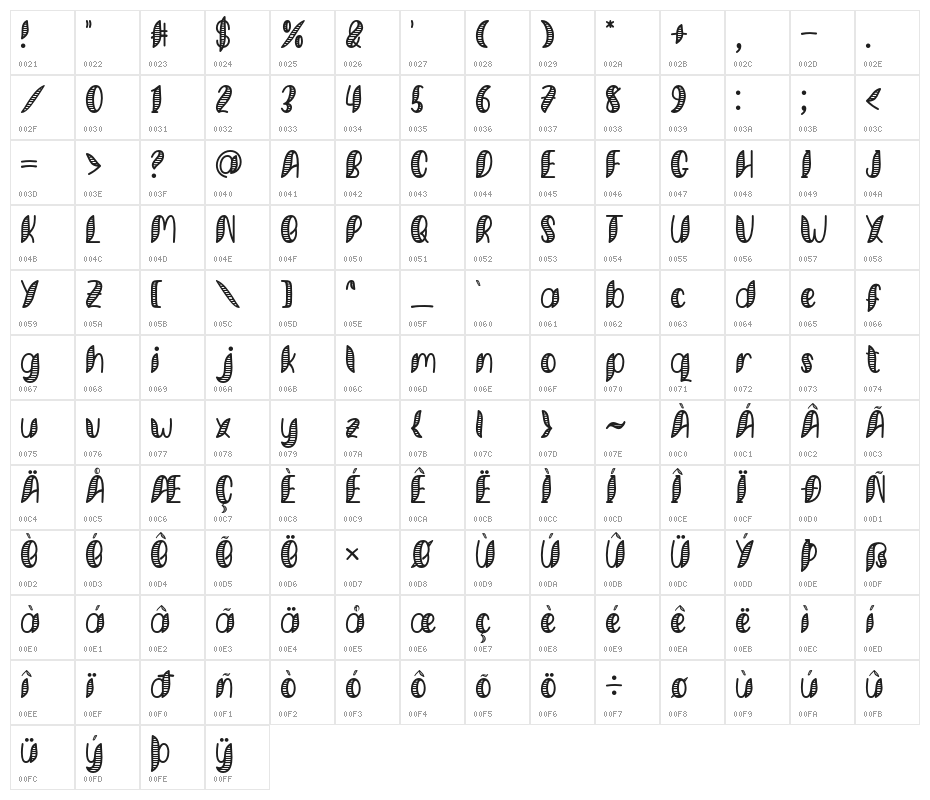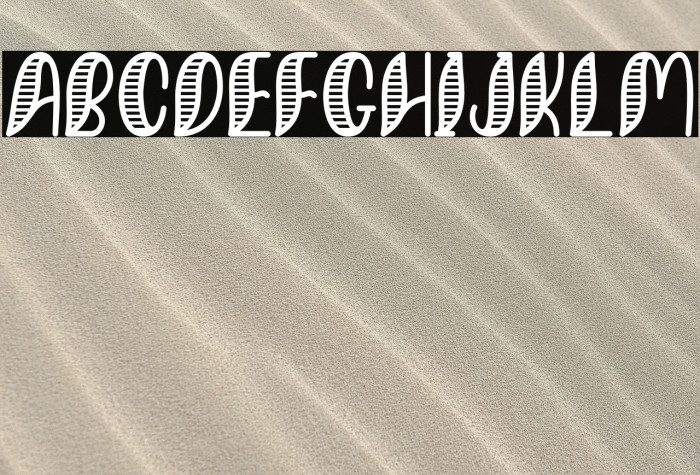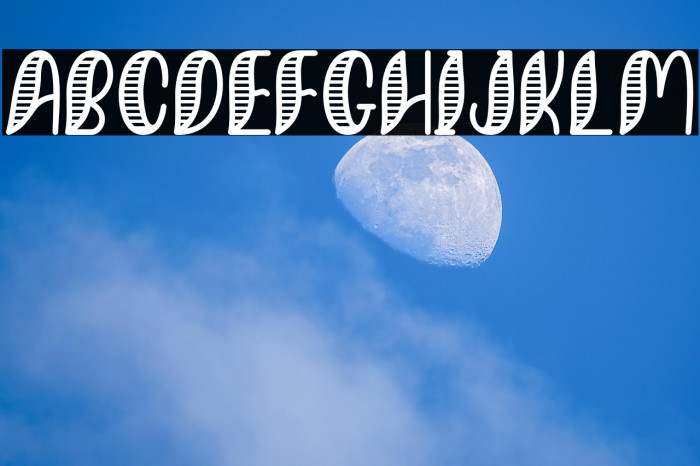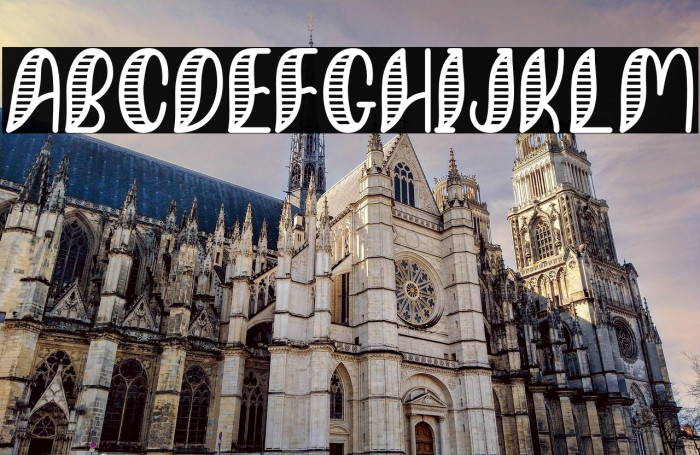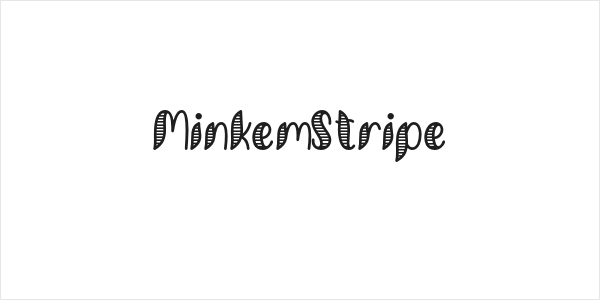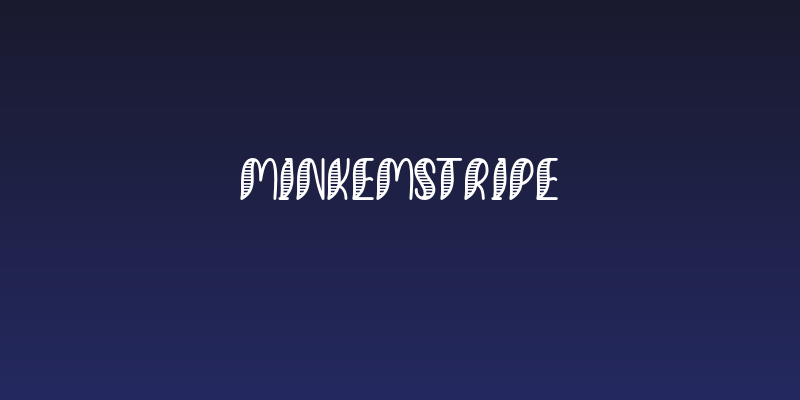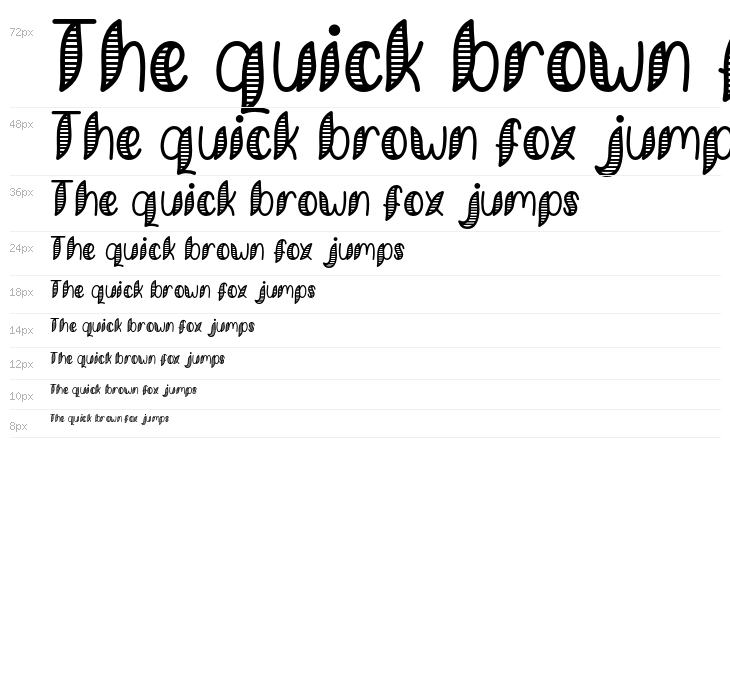
MinkemStripe Font
MinkemStripe Description
This font features a playful and decorative style with a unique striped pattern within each character. The letters are rounded and have a hand-drawn appearance, giving them a whimsical and artistic feel. The uppercase and lowercase letters maintain a consistent design, with the stripes adding a sense of movement and texture. The numerals and special characters follow the same aesthetic, ensuring a cohesive look across all elements. This font is ideal for projects that require a fun and engaging visual element, such as children's books, playful branding, or creative posters.
| Proposed Projects | Ideal for children's books, playful branding, creative posters, and artistic invitations. |